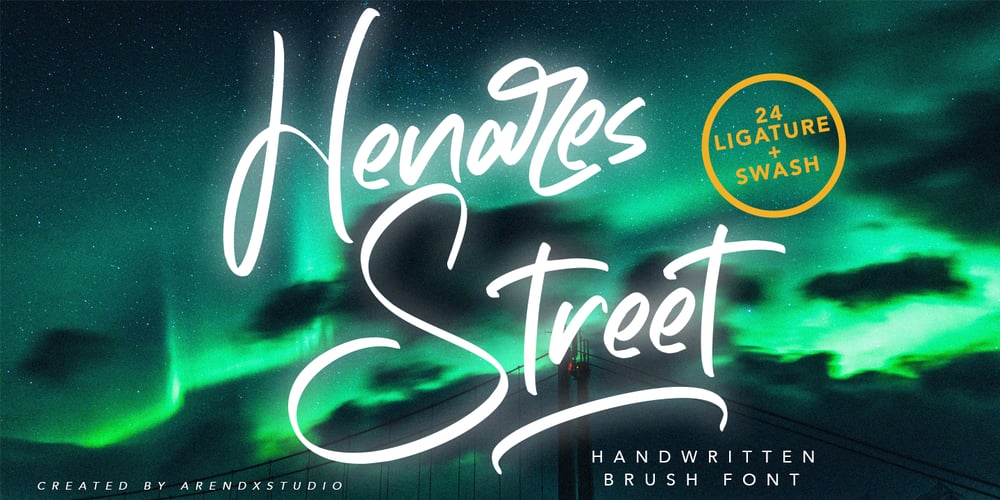
Henares Street Font Family was designed by Asep Rendi and published by Arendxstudio. Henares Street contains 2 styles and family package options. Heares Street – Brush Font inspired by urban fonts with sharp and beautiful letters that create fonts that are modern, trendy and elegant. Heares Street came with opentype features such stylistic alternates, stylistic sets & ligatures good for logotype, poster, badge, book cover, tshirt design, packaging and any more.Features : • Character Set A-Z • Numerals & Punctuations (OpenType Standard) • Accents (Multilingual characters) • Ligature • Alternate